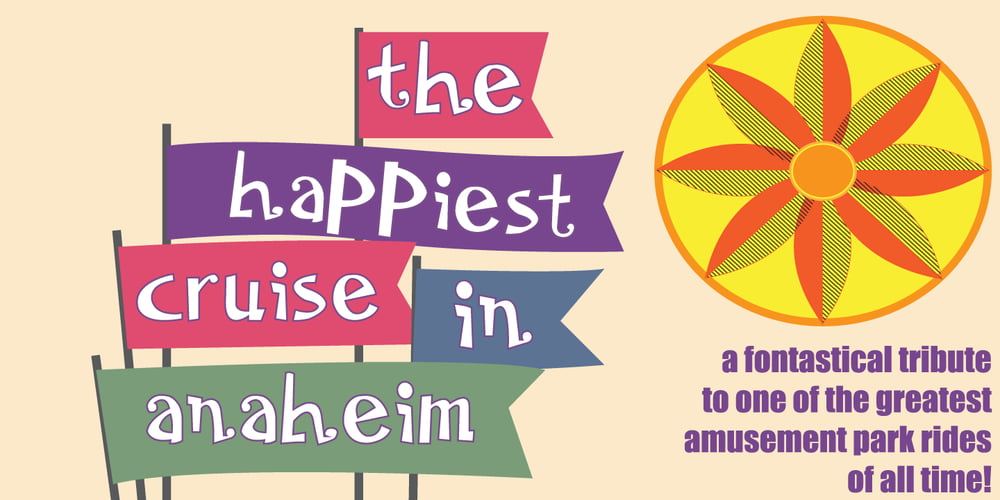
The Happiest Cruise In Anaheim
The Happiest Cruise In Anaheim font
The Happiest Cruise In Anaheim Font Family was designed by Rob Barba and published by Megami Studios. The Happiest Cruise In Anaheim contains 2 styles and family package options. Inspired by the signage of one of the greatest theme park rides in the world (you know, the one with the song that you can’t really get out of your head), The Happiest Cruise in Anaheim is sure to bring your small world of fonts closer. Whether a world of wonder or a world of cheer, the playful, quirky and childlike joy of the curves and lines will hopefully set your work on a journey through imagination!